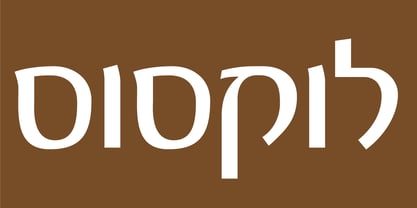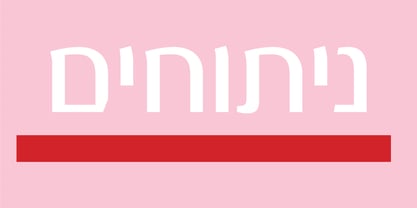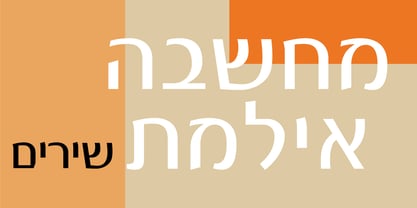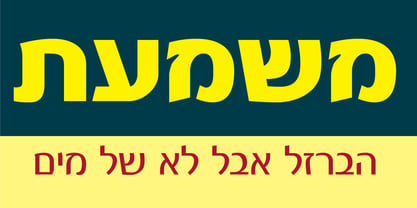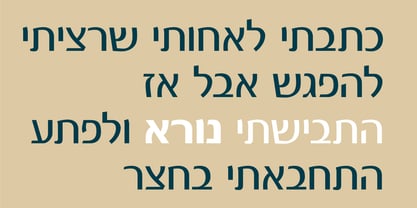
Lueeza
The Lueeza Font Family was designed by Zvika Rosenberg and published by Masterfont. Lueeza contains 4 styles and family package options. More about this family
This calligraphic scribble follows the traditional Hebrew type by intensive and stylistic hand drawn lines. The contrast of verticals versus horizontals makes it a highly legible font family. Geometric forms make this elegant font family a great companion for invitations and signs, indoor and outdoor. Minor outlines updates. Please be aware of minor changes that might impact page layouts done with older fonts' versions. So be careful.